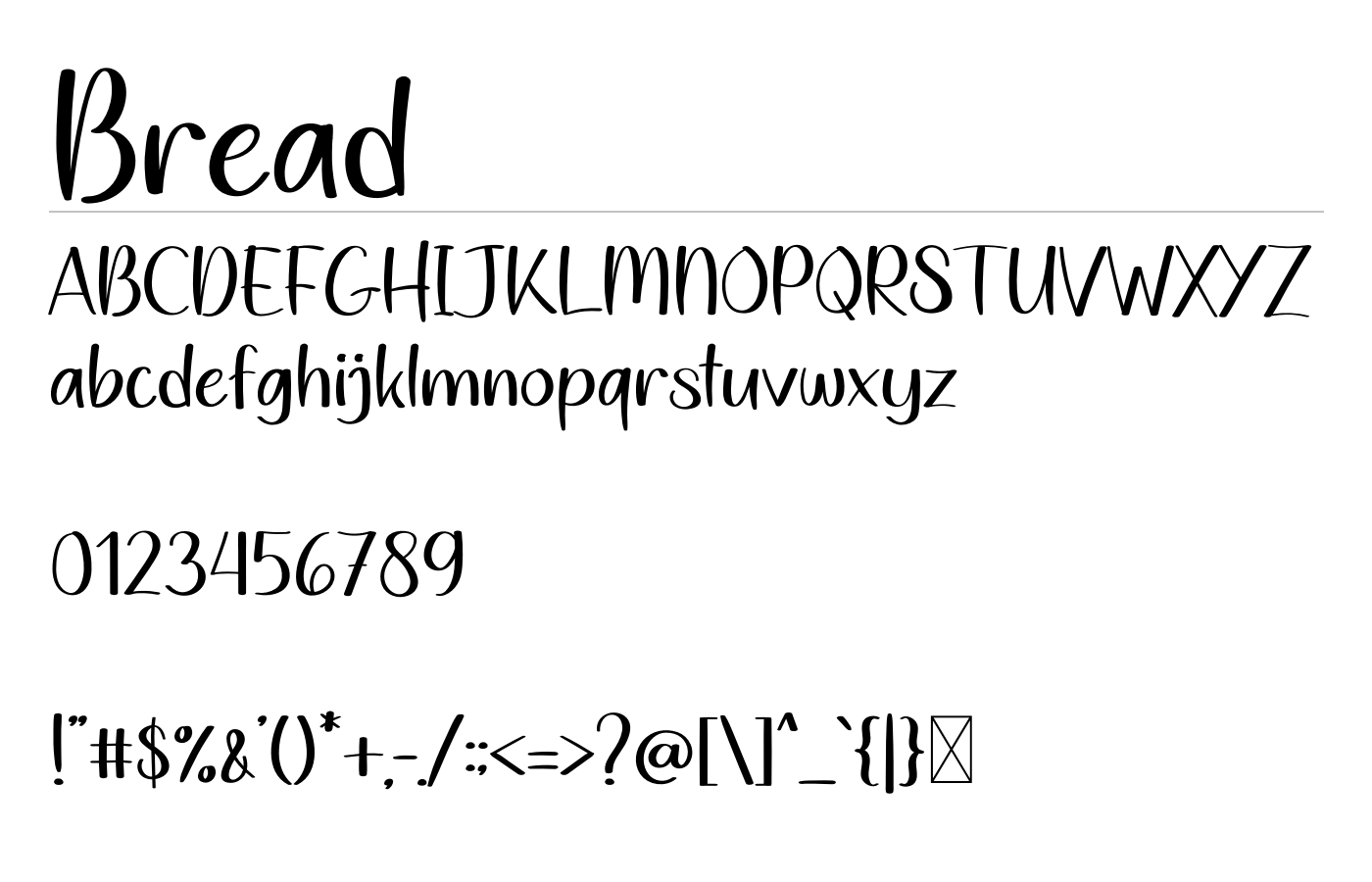
Bread Font is a playful and casual handwritten typeface with a tall, narrow structure and smooth, organic strokes that give it a friendly and approachable feel. Its unique letterforms and slightly irregular lines make it perfect for creative branding, informal headlines, and designs aiming for a personal, warm touch. This font works well where a lively, modern handwritten style is desired, such as in logos, invitations, and social media graphics.
Bread Font
About Bread Font